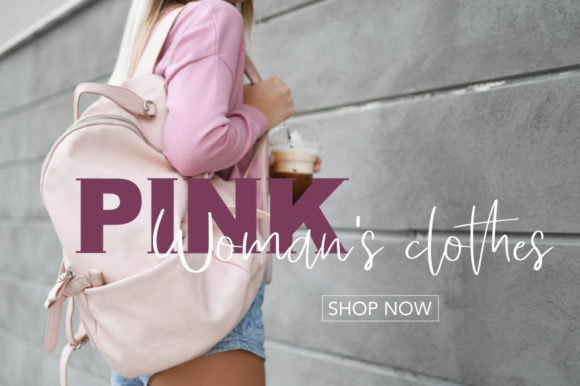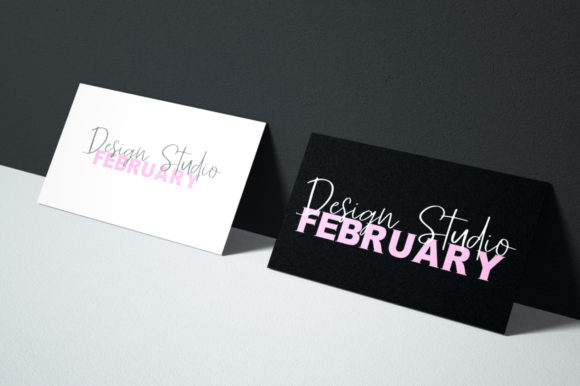
Simple Harmonic Duo Font
db-ku.com - Script & Handwritten -- The Simple Harmonic is a beautiful script duo. It comes with an elegant script, and striking sans serif font.